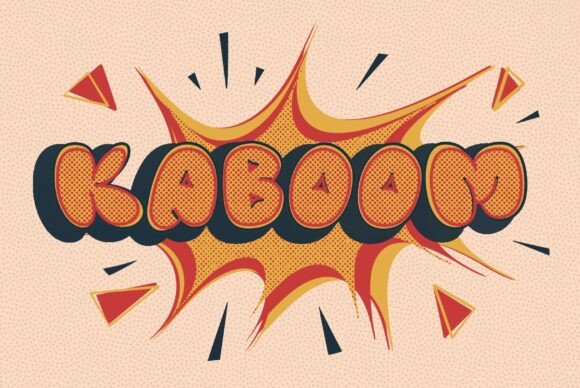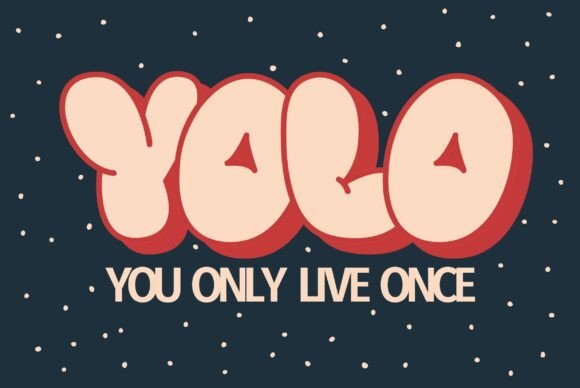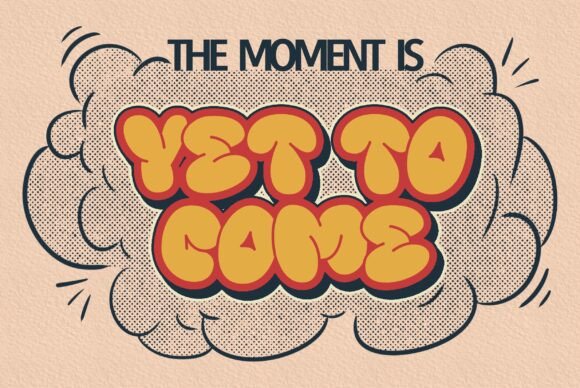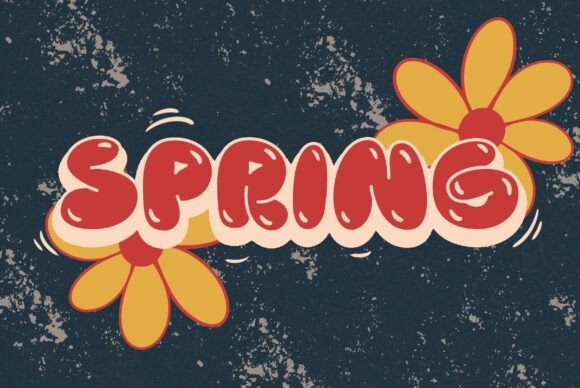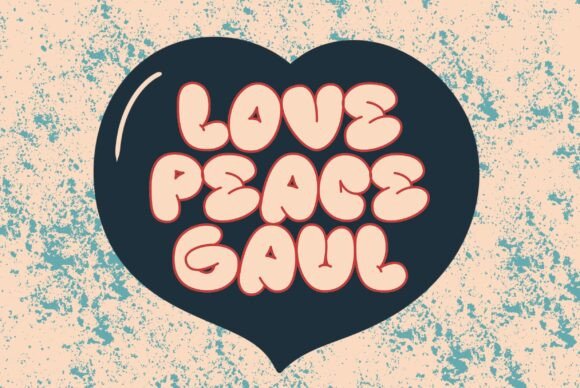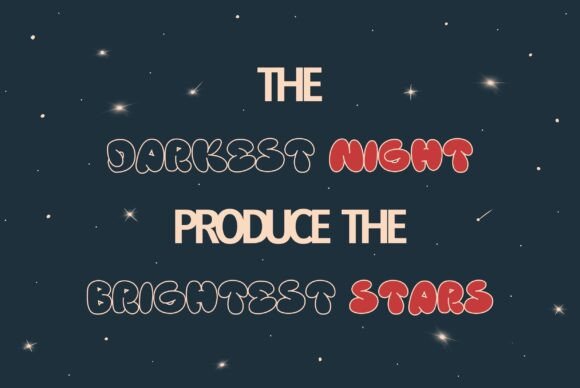
Introduction to Mossy Mistiq Font
Have you ever found yourself staring at a blank canvas, struggling to come up with the perfect design to convey your message? The blank page can be intimidating, but what if you had a secret tool to give your creativity a boost? Enter the Mossy Mistiq Font, a game-changing design resource that’s about to revolutionize the way you approach your next project.
With its unique blend of playful graffiti-inspired touches and retro aesthetic, Mossy Mistiq Font is the perfect addition to any designer’s toolkit. Whether you’re working on a bold poster or flyer, or need a versatile font for a more subtle design, Mossy Mistiq Font offers the perfect balance of style and readability.
As a high-quality, free download, Mossy Mistiq Font is a valuable asset for designers of all levels. Its comprehensive multilingual support, transparent background options, and outline styles make it a versatile and characterful font for any creative project, from logos to brochures and beyond.
Key Features of Mossy Mistiq Font
- Unique, hand-drawn design with a natural, earthy feel, perfect for creative projects.
- High-quality font with transparent background, ideal for use on images with complex backgrounds.
- Designed with a high level of detail, suitable for use at resolutions up to 300 DPI.
- Perfect for use in creative projects, such as invitations, posters, and branding materials.
- Unique characteristics include intricate textures and subtle color variations, adding depth and visual interest to designs.
Honest Review: Mossy Mistiq Font
I recently stumbled upon the Mossy Mistiq Font while searching for design resources for a creative project. The font has gained popularity among designers due to its unique and high-quality design.
- ✨ Unique and modern design that can add a touch of elegance to any creative project
- ✨ Offers a transparent background option, making it easy to use in various design applications
- ⚠️ Limited font styles and weights available, which may not be suitable for complex design projects
Overall, the Mossy Mistiq Font is a great addition to any design resource collection. Its unique design and high-quality make it suitable for a variety of creative projects. While it may have some limitations, it’s a great option for designers looking for a free and stylish font.
To get the most out of the Mossy Mistiq Font, use it in creative projects where a whimsical, hand-drawn feel is desired. Experiment with different font sizes and colors to create visually appealing text effects. Consider combining the font with other design elements, such as illustrations or graphics, to add depth and interest to your design.
The Mossy Mistiq Font is ideal for use in a variety of creative projects, including invitations, posters, and social media graphics. Its high-quality design and transparent background make it perfect for use in digital designs where a clean and minimalist aesthetic is desired. You can also use the font in free download templates